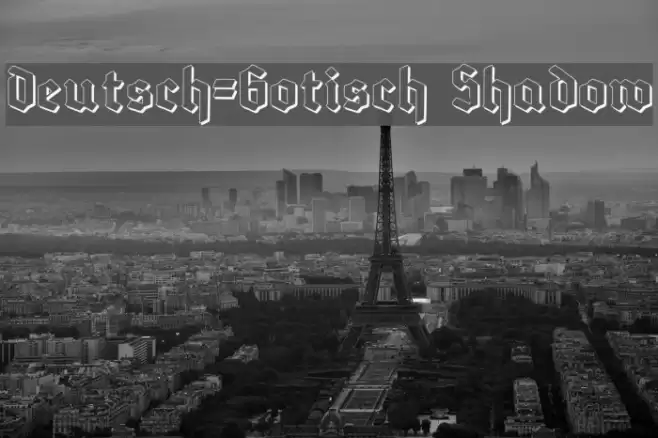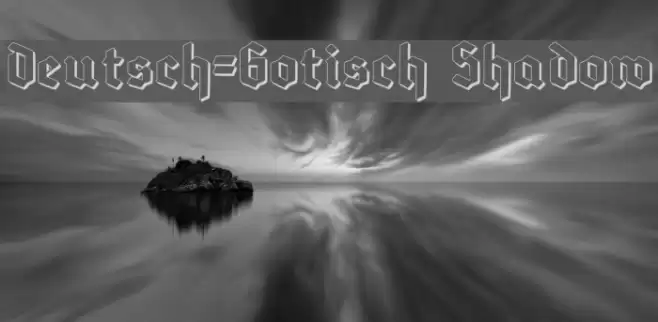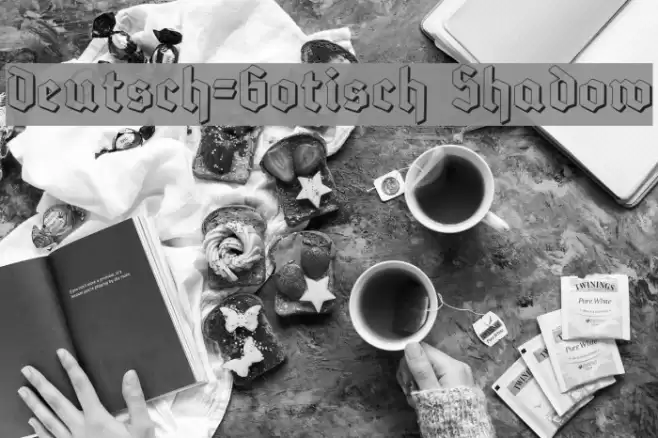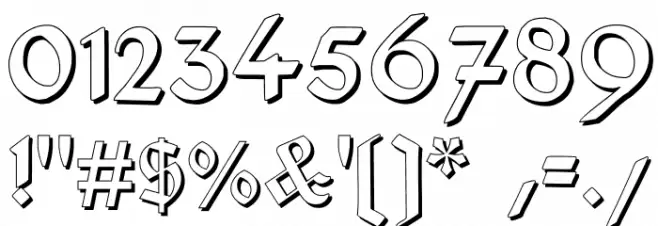
Deutsch-Gotisch Shadow Font
Deutsch-Gotisch Shadow Description
This font features a bold and dramatic style with a shadow effect that gives each character a three-dimensional appearance. The letters are reminiscent of traditional Gothic script, characterized by sharp angles and intricate details. The uppercase and lowercase letters maintain a consistent style, with a strong emphasis on vertical lines and pointed serifs. The numerals and special characters are designed to match the ornate and shadowed aesthetic, making them stand out with a distinct presence. This font is ideal for creating a striking visual impact, suitable for projects that require a historical or medieval touch.
A bold Gothic-style font with a shadow effect, featuring sharp angles and intricate details from Uncategorized fonts.
- Proposed Projects: Ideal for historical-themed designs, book covers, posters, and branding that requires a medieval or dramatic flair.
- Overall Style: Vintage
- Use Case: Headlines, Logos, Decorative text